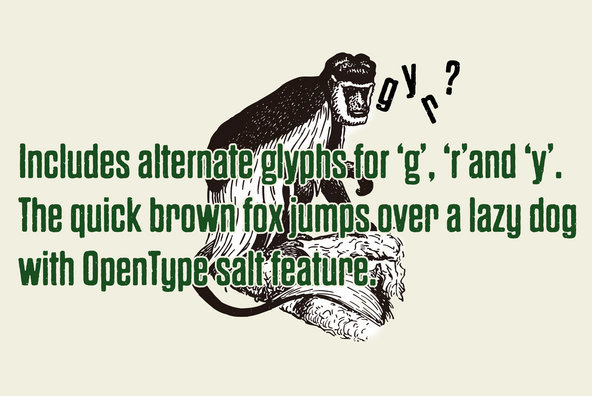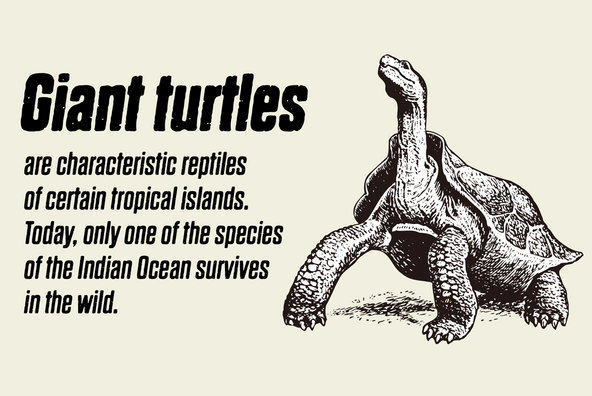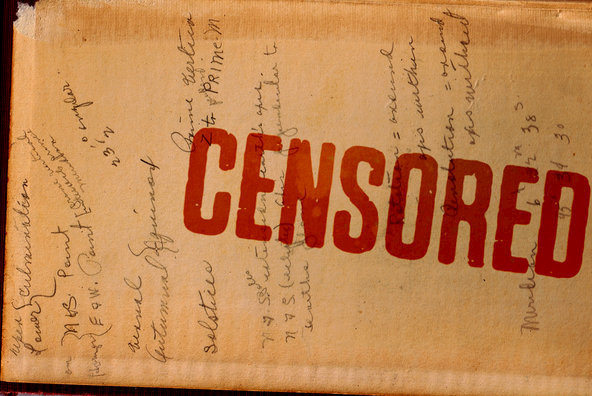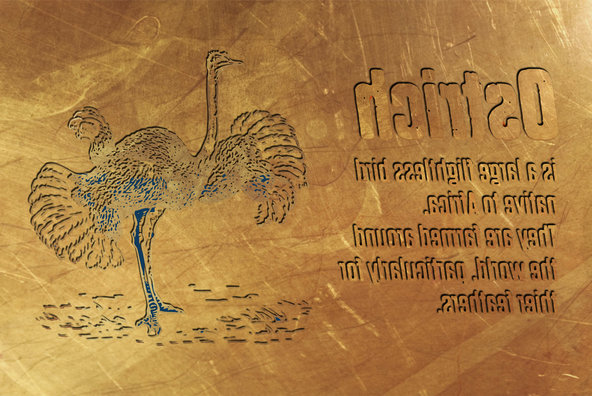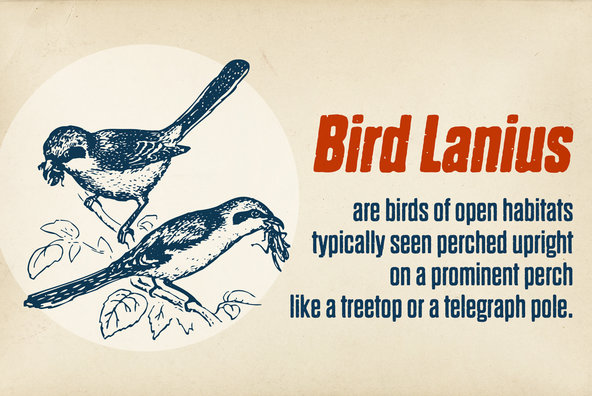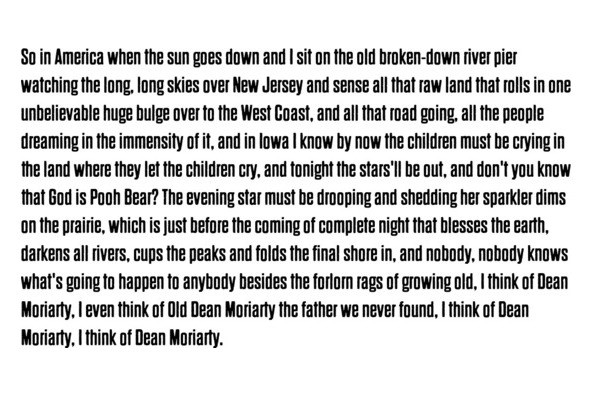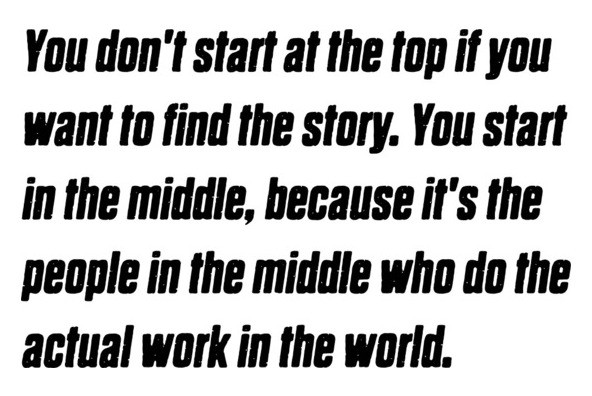
Dharma Gothic P font family is designed based on Dharma Gothic and a distressed offshoot from the original. The glyphs that damaged by printing the original had been tweaked by hand work with great care.
Dharma Gothic P font family is designed based on Dharma Gothic and a distressed offshoot from the original. The glyphs that damaged by printing the original had been tweaked by hand work with great care. This family contains basic Roman, Italic, Bold and it's Italic to suit a wide range of creative works. and g,r & y have their alternative glyphs that can be used with OpenType salt feature.